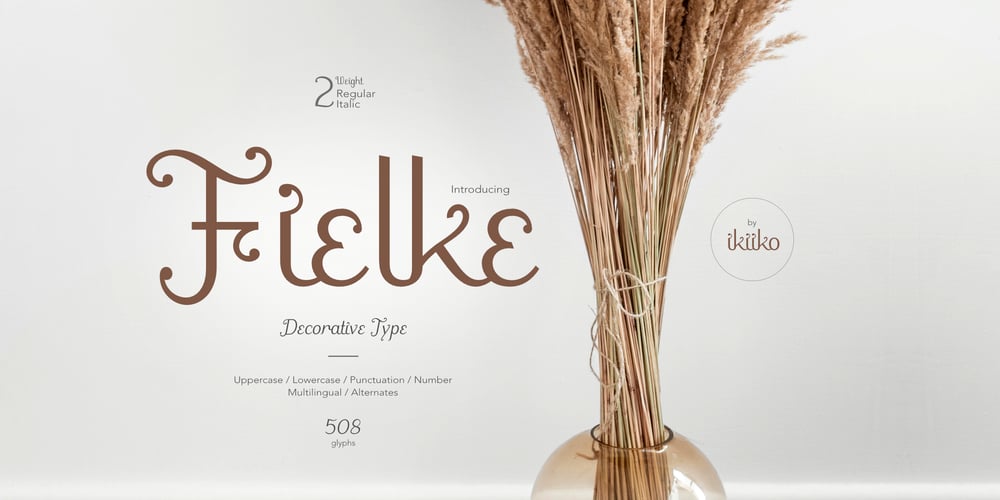
Fielke Font Family was designed by Wahyu Eka Prasetya, Andhika Pradana and published by IKIIKOWRK. Fielke contains 1 styles and family package options. Introducing Fielke – Decorative Type, created by ikiiko.Fielke is elegant type with a beautiful decorative shape. This type is crafted with the touch of craftmanship. Fielke also clean have a ton of stylistic alternatives to choose. This typeface is perfect for an elegant logo, interior magazine, beauty product, packaging product, quotes, or simply as a stylish text overlay to any background image.What’s included? 2 Weight : Regular & Italic Number & Punctuation Alternates Multilingual Support Enjoy our font and if you have any questions, you can contact us by email : ikiikowrk@gmail.com